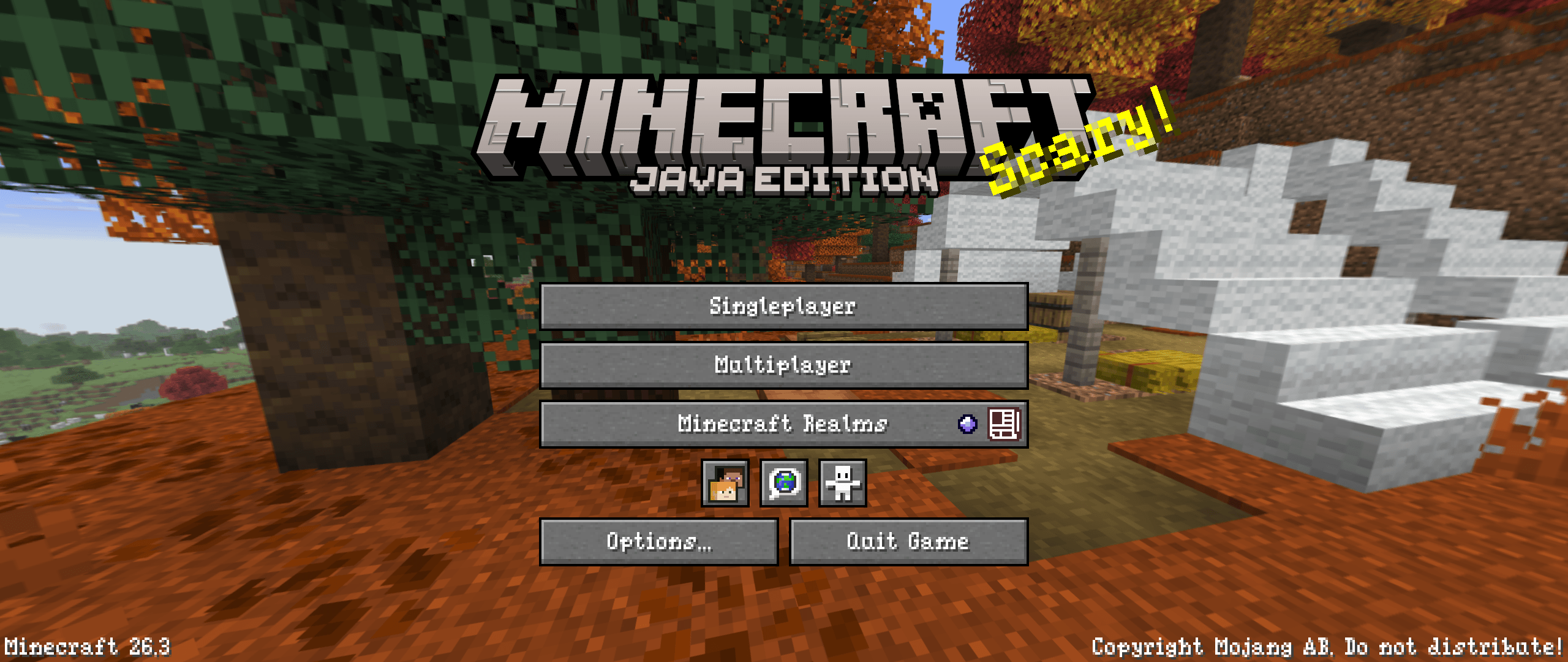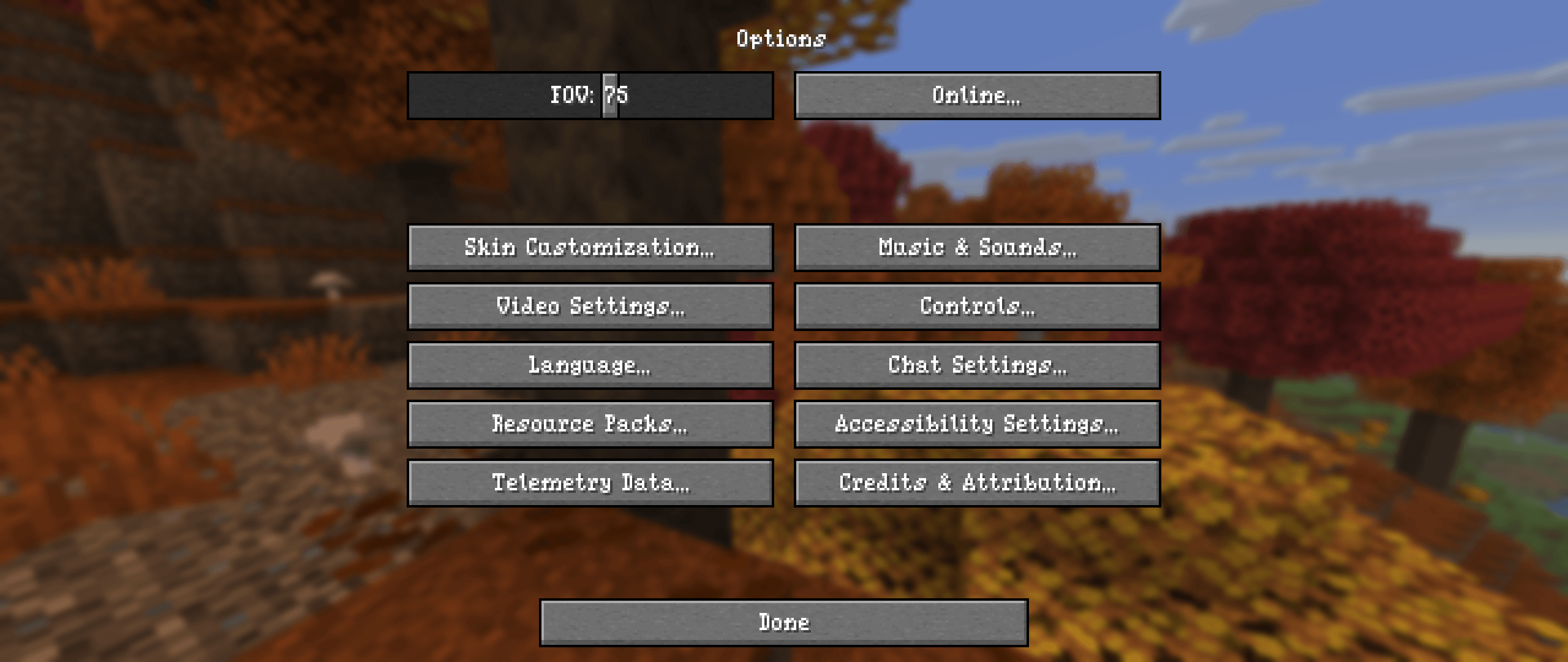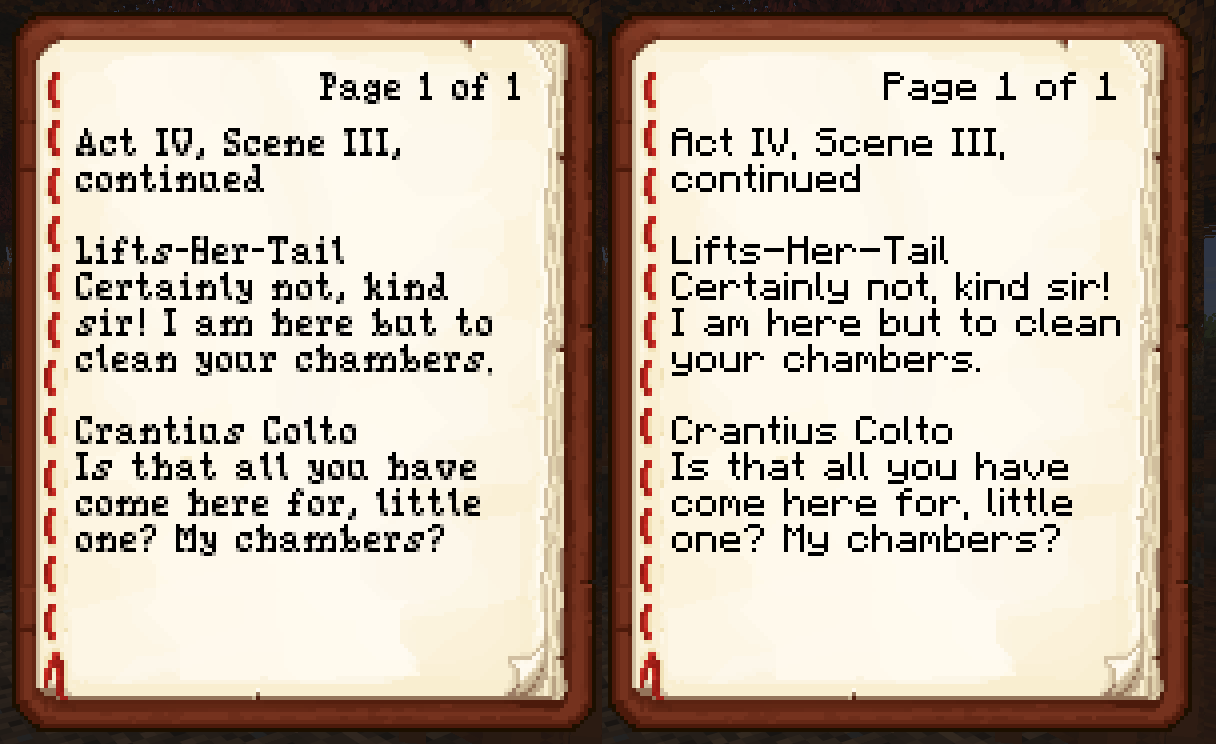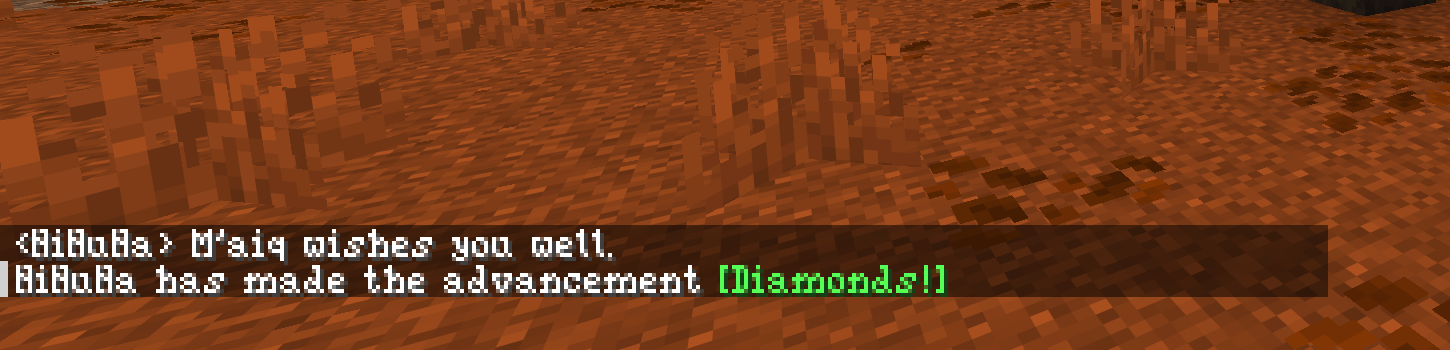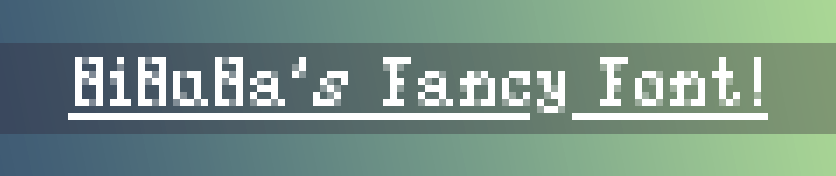
NiNuNa's Fancy Font
> A sleek and fancy serif typeface. ✒️🕯️🌹
Hey there! This resource pack replaces the standard Minecraft font with a fancy, sleek serif typeface.
The idea was to make the characters look more fantasy-like, making the font perfect for fantasy and medieval worlds!
The font is also very compact and slim, and its semi-transparent pixels give it a distinctive appearance.
Currently, support for diacritics and accents is only partial.